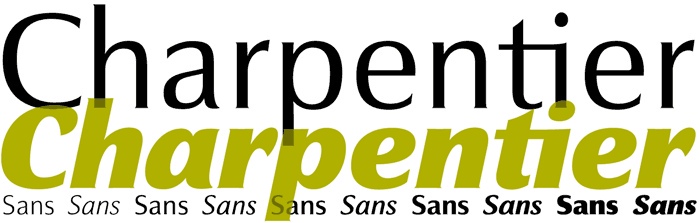
Charpentier Sans Pro Font
This versatile font is a perfect fit for a wide range of creative projects. Use it for professional branding, eye-catching magazine layouts, elegant book covers, and stylish website headers. Its clean lines and modern aesthetic also make it ideal for advertising campaigns and sophisticated packaging designs.
What makes Charpentier Sans Pro Font so exciting is its remarkable blend of classic elegance and contemporary functionality. It’s a beautifully crafted sans-serif font that feels both timeless and fresh. The precise, geometric forms are balanced by a touch of humanist warmth, giving your text a professional yet approachable feel. It’s a font that commands attention without being overly bold, making it suitable for both headlines and body text. The attention to detail in its design ensures exceptional legibility, even at smaller sizes, which is crucial for digital and print media alike. The clean lines and well-defined characters create a sense of order and clarity, enhancing the overall user experience. This balance of style and readability is what truly sets it apart from other fonts, providing designers with a powerful tool for visual communication.
The Charpentier Sans Pro Font family is comprehensive and robust, providing designers with a full spectrum of weights to work with. It includes a variety of styles such as Regular, Italic, Bold, and Bold Italic, as well as a full range of weights from Thin to Black. This extensive family allows for incredible flexibility in design. You can easily create a visual hierarchy in your projects by using different weights for headlines, subheadings, and body text. Whether you need a subtle, elegant look or a strong, impactful statement, the Charpentier Sans Pro Font Free Download family has you covered, ensuring consistency and professionalism across all your creative endeavors.